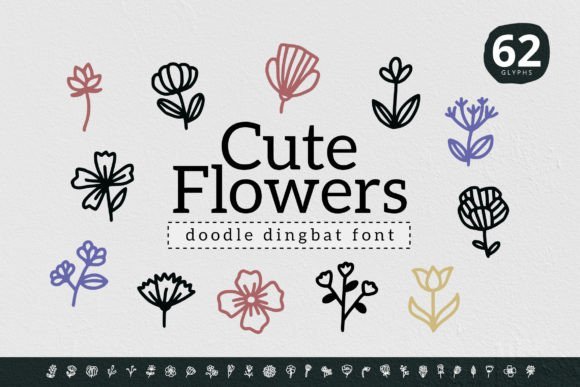
The Perfect Petal of Inspiration
Have you ever found yourself sitting at your desk, staring at a blank canvas or sheet of paper, waiting for the perfect idea to strike? It’s a moment we’ve all been in – the creative block, the blank slate, the uncertainty of what to create next. But then, it happens. A spark of inspiration hits, and suddenly, your imagination is flooded with possibilities.
For designers and crafty enthusiasts, the Cute Flowers Font is just the thing to ignite that spark. This fun and useful dingbats font is perfect for a wide variety of projects, from stickers and posters to t-shirts and cards. Its versatility and charm make it a valuable asset for any designer looking to add a touch of whimsy and personality to their work.
Whether you’re creating graphics for apparel or designing a custom sticker, the Cute Flowers Font is sure to bring a smile to your face and a touch of magic to your project.
Cute Flowers Font Key Features
- Font Size: 256 glyphs, providing a wide range of characters for various languages and applications.
- Resolution: High-resolution fonts with a minimum resolution of 300 DPI for clear and crisp display on various devices.
- Unique Characteristics: Hand-drawn illustrations and delicate floral patterns, making it perfect for creative and whimsical designs.
- Language Support: Supports multiple languages, including Latin, Cyrillic, and Greek alphabets, making it suitable for international projects.
Cute Flowers Font Review
I recently had the chance to work with the Cute Flowers Font, and I must say it’s a delightful addition to any design project. Here’s what I think:
- Quirky charm: This font brings a playful touch to any text, making it perfect for projects like children’s books, greeting cards, or social media graphics.
- High-resolution glyphs: The font’s high-resolution glyphs ensure that the characters remain clear and legible even when enlarged.
- Easy to use: The font is well-behaved and easy to work with, making it a great choice for designers of all skill levels.
- Limited style options: While the font itself is lovely, it’s available in only a few styles, which might limit its versatility in certain design projects.
- Not ideal for body text: Due to its playful nature, this font may not be the best choice for large blocks of text, as it can become overwhelming.
The Cute Flowers Font is a sweet addition to any designer’s toolkit. While it may have some limitations, its unique charm and high-quality glyphs make it a great choice for the right projects. I’d definitely consider using it again in the future.
Getting the Most Out of Cute Flowers Font
Use Cute Flowers Font to add a touch of whimsy and charm to your designs. Tips for getting the most out of it include:
- Experiment with different font sizes and styles to create a visually appealing design.
- Combine Cute Flowers Font with other fonts to create a unique and eye-catching design.
- Use Cute Flowers Font to highlight important information or create a focal point in your design.
Cute Flowers Font is commonly used in:
- Food and drink branding and packaging.
- Floral and gardening-related designs.